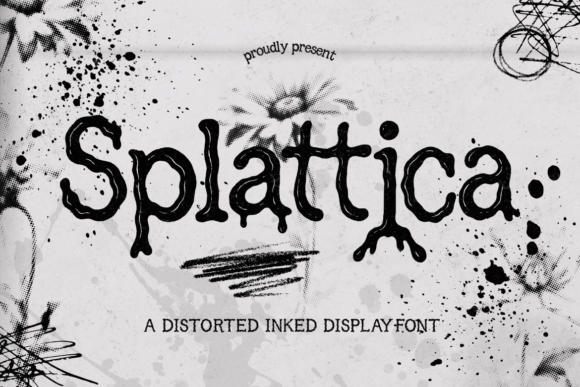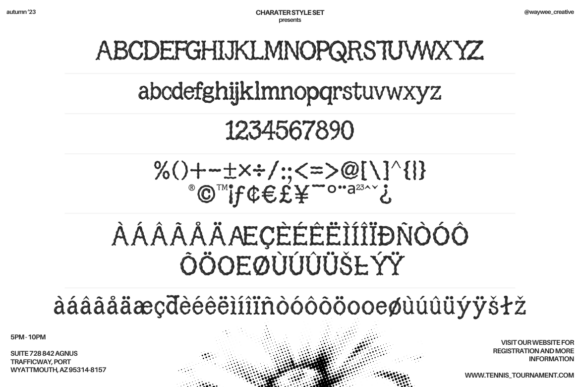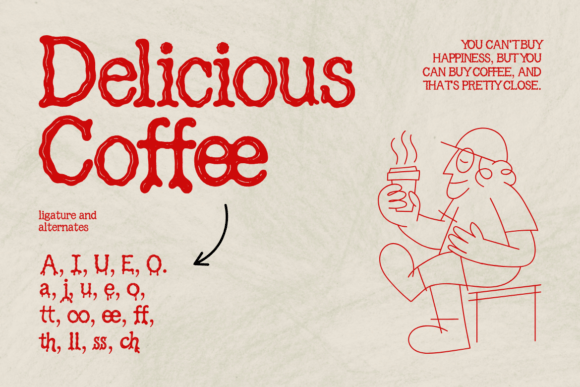
Splattica Font: Grunge Display Font for Bold Poster Designs
About the Splattica Font
The wait is over! The incredible Splattica Font is now available for your design toolkit. Splattica – Distorted Hand-Inked Display Font
Splattica is a bold, chaotic, hand-inked typeface inspired by 90s grunge posters, rebellious zines, and raw street energy. Each letterform is uniquely crafted with distressed edges, splattered ink effects, and an organic, imperfect feel—perfect for designs that embrace attitude and personality.
Splattica’s distorted strokes and melting contours bring a rebellious spirit to your visuals. Whether you’re designing for music events, streetwear branding, horror covers, or vintage-inspired posters, this font delivers expressive energy with every letter.
Splattica Font Usage Examples
Splattica Font Example